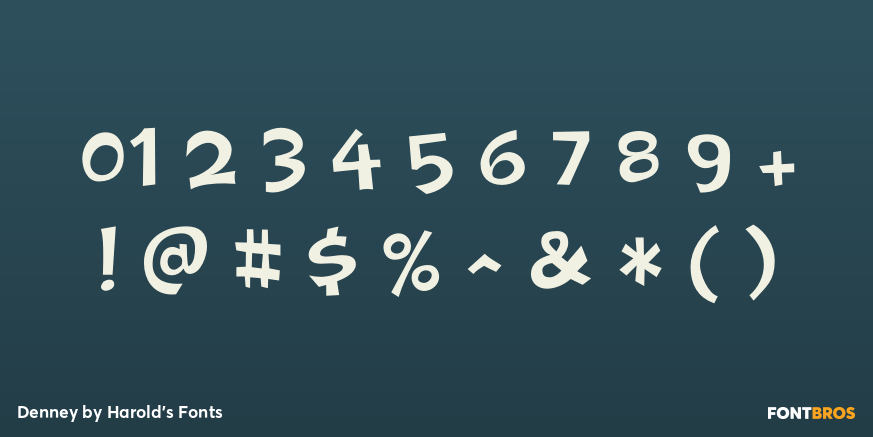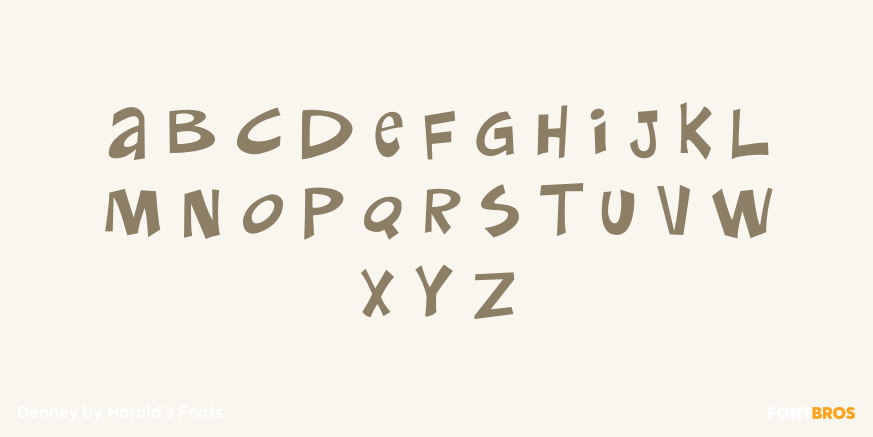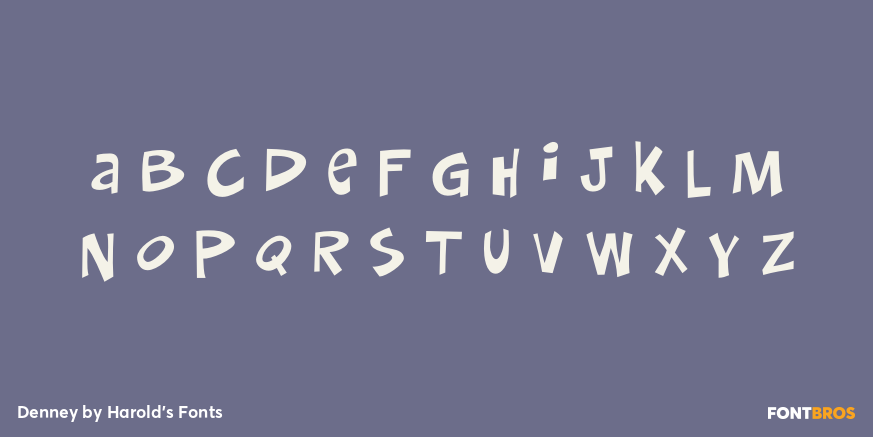
Denney
DENNEY SALTY and DENNEY SPICY are playful, comical, and quirky fonts, inspired by the work of Alan Denney for the Barker Greeting Card Company of Cincinnati, OH, circa 1969?74. DENNEY SALTY (formerly Denney One) has the bumpy edges and whimsical letterforms of hand lettering done with a crayon. DENNEY SPICY (formerly Denney Two) is more dynamic, like bold pen or brush lettering. Both fonts are essentially unicase, but have alternate letterforms in the upper-and lowercase positions for more variety.
Version 2.0 of both fonts includes an expanded character set and improved spacing and kerning. Alternate characters are now accessed as Opentype Stylistic Alternates, and the Salty font has over 60 Discretionary Ligatures for even more of a hand-lettered feel.